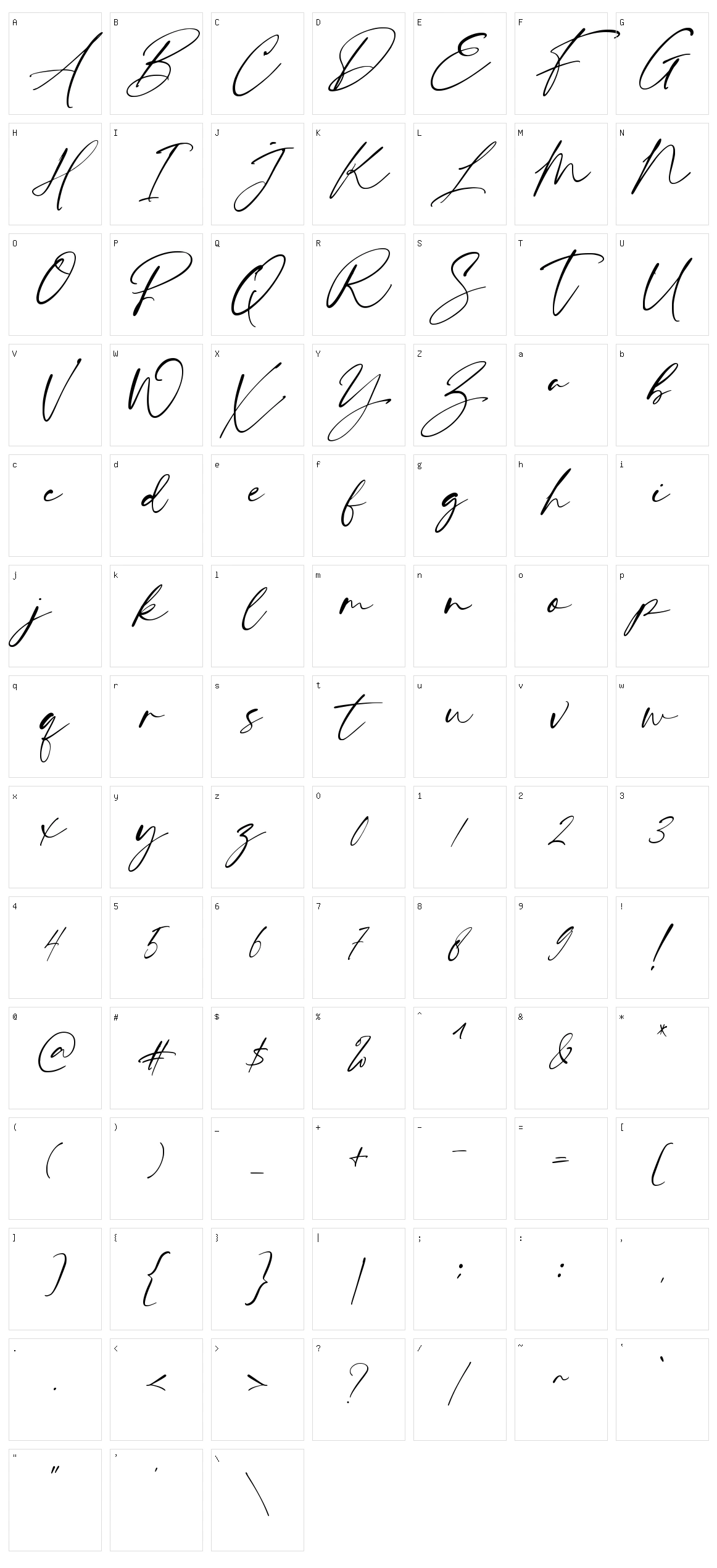
The free font White Palmer is carefully designed by Creavibes Design, showcasing a thoughtful balance of creativity and usability and falls under the Script font style. When you download the ZIP file, it contains only 4122.52 KB of font files, making it lightweight and quick to download. Please review the license details below to understand permitted usage and distribution rights. If license information is not available, we recommend using this font for personal projects only or contacting the author directly for commercial usage permissions.